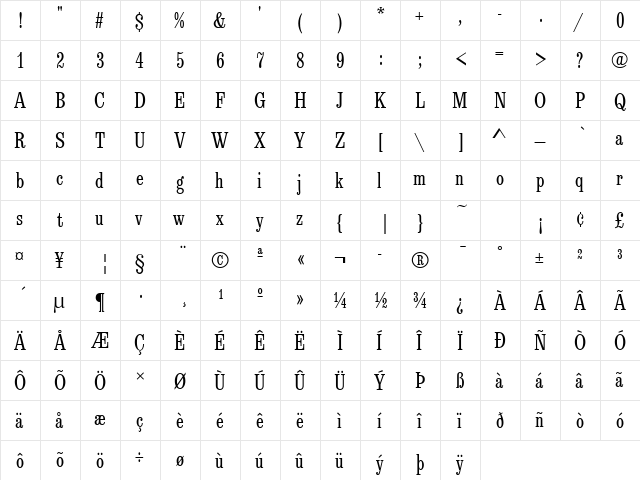
EgizioTCon Regular
Design Context for EgizioTCon Typeface
EgizioTCon takes a measured approach to typography — its balanced proportions and neutral character make it a reliable workhorse for both digital and print work.